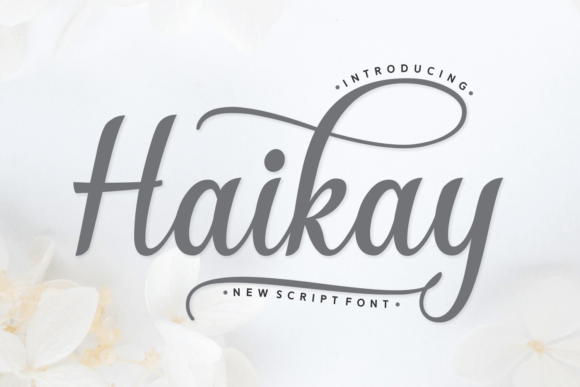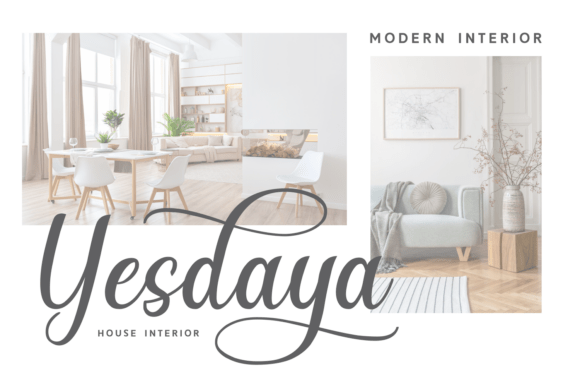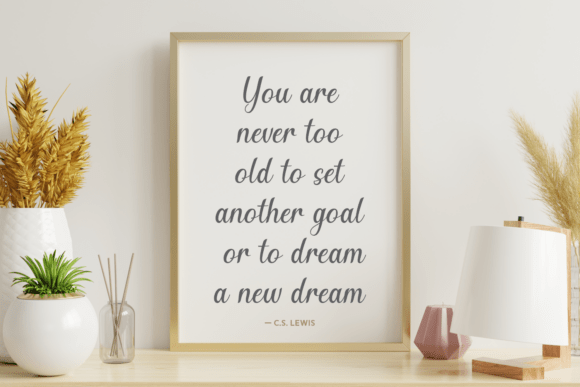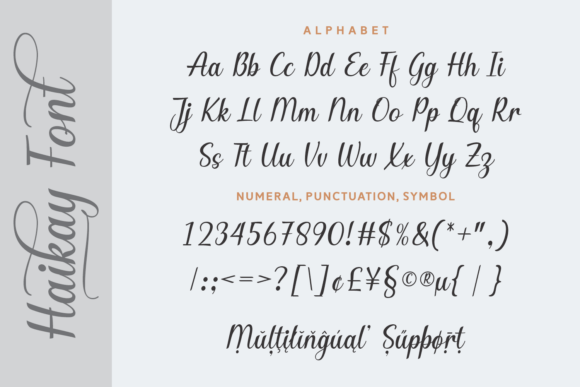
Haikay Font: Elegant Script for Wedding Invitations & Branding
About the Haikay Font
Step up your design game with Haikay Font, a font that exudes confidence and style. Haikay is a refined and elegant script font featuring clean strokes and graceful swashes. Its balanced letterforms and modern calligraphy flair make it perfect for wedding stationery, boutique branding, product packaging, and minimalist logos. Haikay delivers timeless sophistication with just the right touch of charm and flourish—ideal for both professional and creative use.
Haikay’s elegant, yet understated personality makes it a strong choice for branding projects requiring a touch of sophistication, particularly in the fashion, beauty, or luxury goods sectors. It excels in headlines, short text blocks, and logos, adding a refined touch to packaging and invitations. However, its delicate nature makes it less suitable for body text or UI elements where high readability is paramount. Avoid using it for large amounts of continuous text.
Pairing Haikay with a clean sans-serif like Lato or Montserrat provides a contemporary contrast, balancing its script style with a modern feel. For a more classic look, consider pairing it with a serif font like Garamond or Playfair Display. These pairings offer excellent legibility and visual hierarchy within designs.
The overall effect is one of understated luxury and timeless appeal. Projects requiring a sophisticated and subtly charming aesthetic will find Haikay an excellent asset.